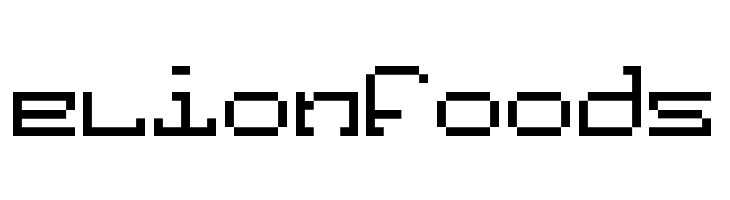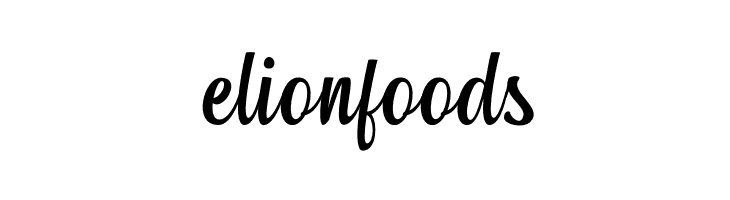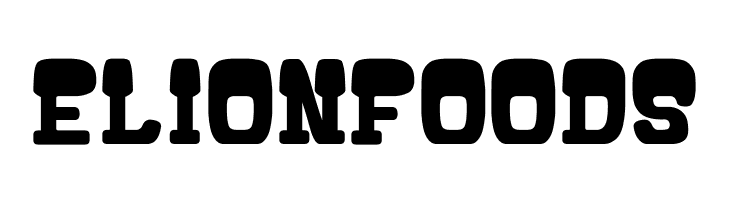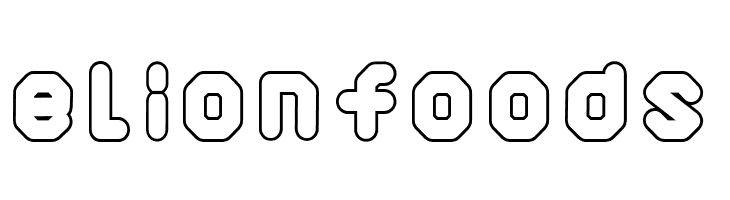
A bold, blocky serif font with strong, consistent strokes and high contrast.
A bold, rounded slab serif font with a vintage yet modern appeal.
A dynamic and elegant script font with flowing, cursive letterforms.
A modern, outlined font with bold, geometric characters and rounded edges.
A retro, pixelated font with a blocky, geometric design.